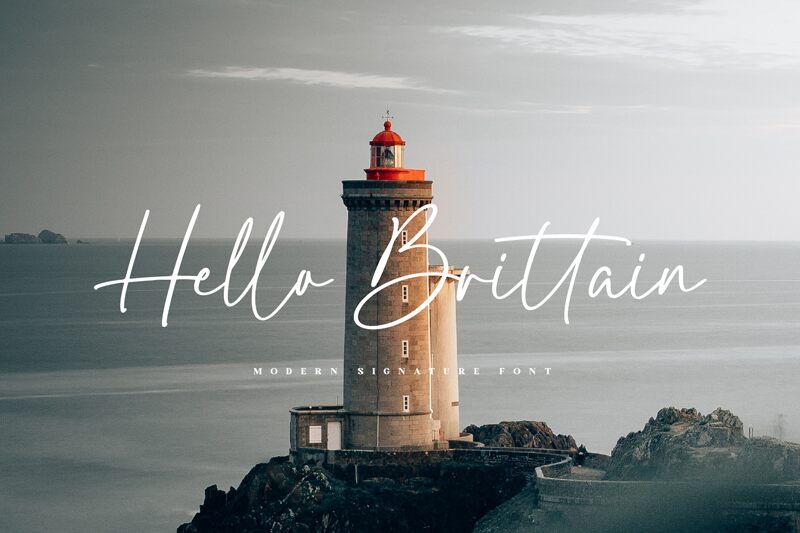
Say hello to Hello Brittain, the modern handwritten font designed by Revo Farisky. Its light weight gives it a delicate touch, perfect for adding a personal feel to any project. Whether you're creating wedding invitations, blog graphics or social media posts, this font is versatile enough to fit any occasion. Its flowing curves and elegant strokes bring a touch of sophistication to your designs while still maintaining an approachable charm. Say goodbye to boring typography and hello to Hello Brittain – the perfect addition to your font collection.
Designed by Revo Farisky from Penculture in 2021